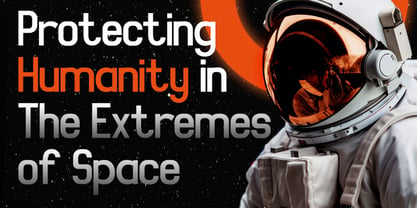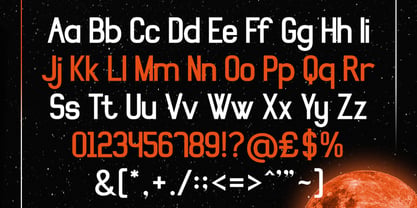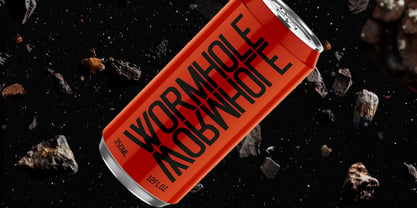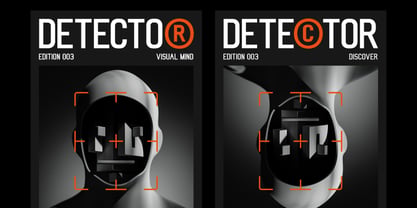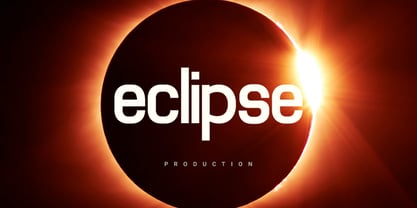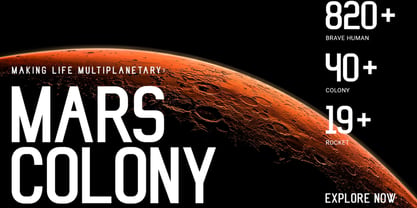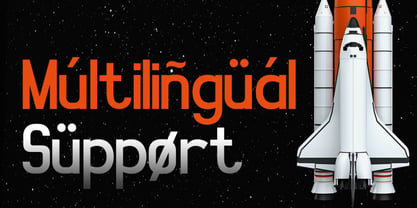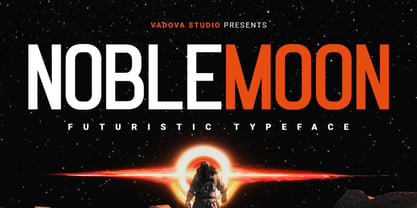
Noblemoon
Noble Moon is a sleek and modern futuristic display typeface crafted for high‑impact designs with a tech‑forward sensibility. Featuring clean geometric forms, distinctive cut‑ins, and balanced proportions, this font delivers a bold presence on screens and in print alike. It includes uppercase and lowercase alphabets, numerals, punctuation, and essential symbols all optimized for clarity and visual harmony. Noble Moon’s design blends minimal sci‑fi cues with practicality, making it suitable for headlines, posters, branding, and digital interfaces that want a contemporary, space‑age edge. Noble Moon is ideal for creatives and brands seeking a futuristic typographic voice. Its sharp yet balanced design suits tech branding, sci‑fi projects, digital UI/UX headlines, event posters, motion graphics, YouTube and streaming visuals, and editorial layouts that want to evoke innovation, exploration, and modernity. The font performs especially well in contexts where strong visual identity and forward‑thinking aesthetics matter.